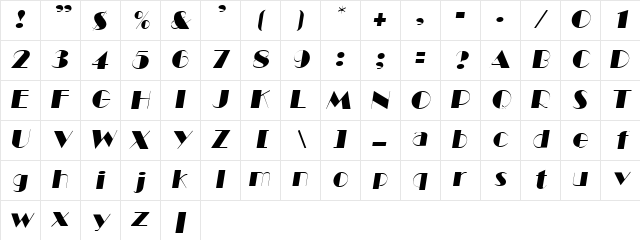
Oratory Oblique Free Font
Oratory Oblique
Design Context for Oratory
Oratory is a composed and adaptable typeface that performs quietly and consistently across a wide range of design contexts. The slanted form adds forward momentum and visual energy.
Pro Tip: Use Oratory for emphasis, pull quotes, and subheadings where its slanted energy can add rhythm to the layout.